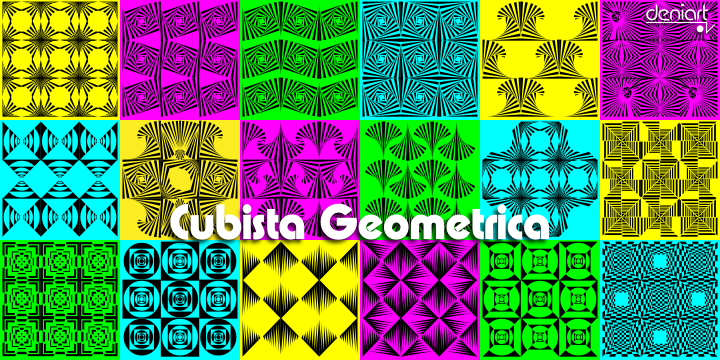
Make an impact with geometric cubes!
The Cubista Geometrica typeface is a monospaced design created to form repeated patterns, either individually (single symbol) or mix and matched with partner charaters. Each image is accessed through the standard keyboard—instead of letters, you'll get an image or glyph. This monospaced typeface is designed proportionately high as it it wide making it easy to form multi-line patchworks. The combination possibilities are enormous—this font comes with a PDF guide showing many of the assembly options, the rest we leave to your own imagination!
Cubista Geometrica